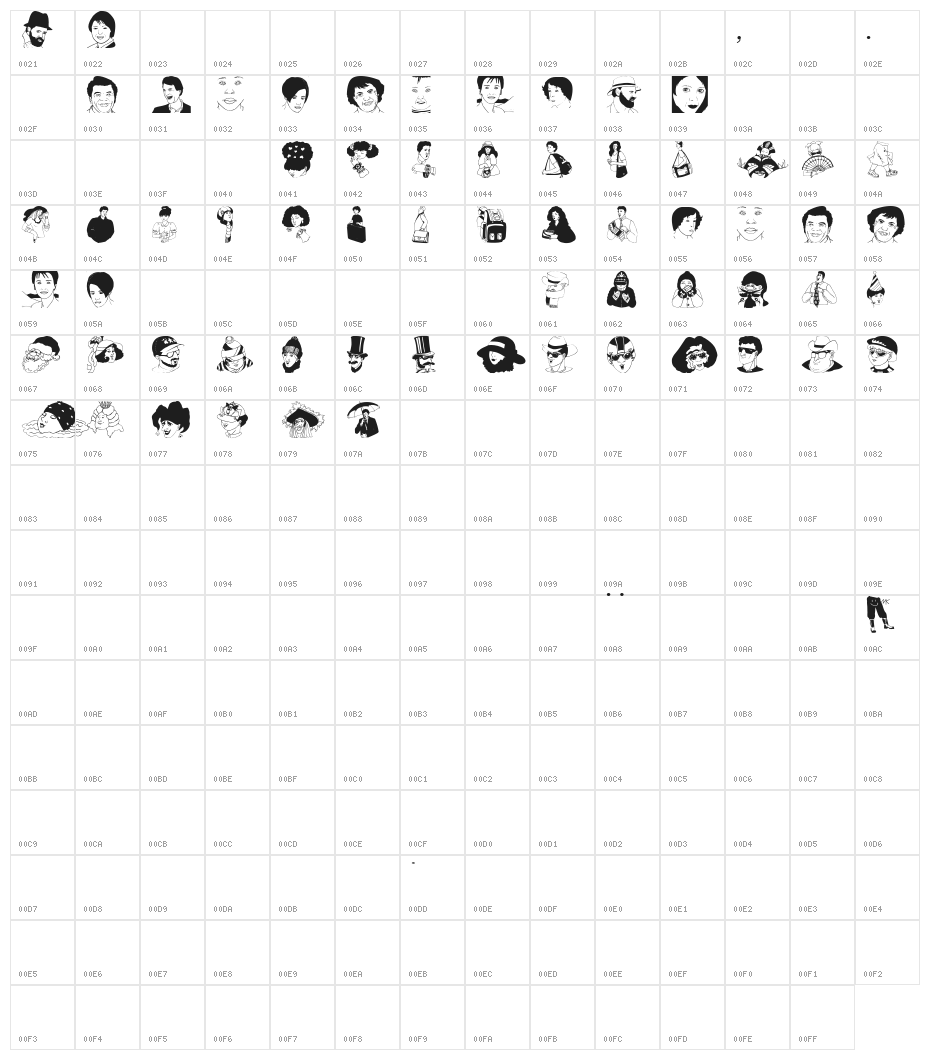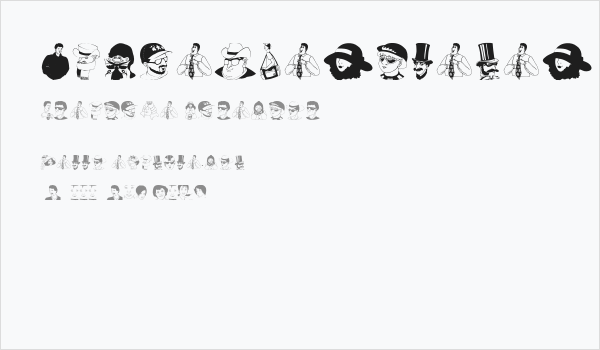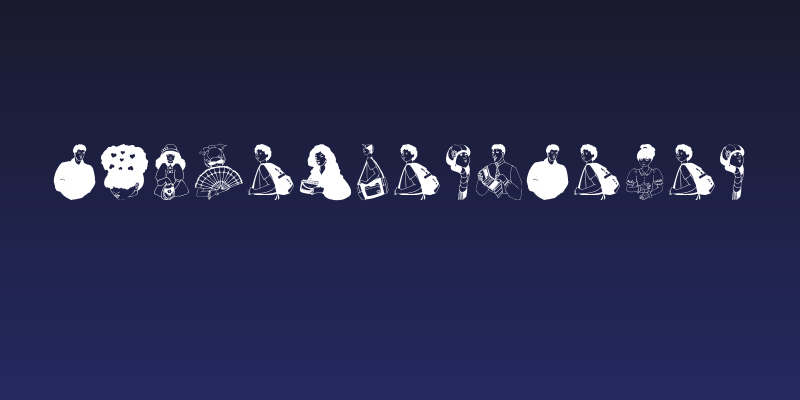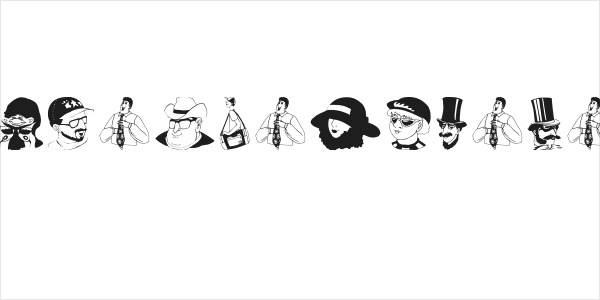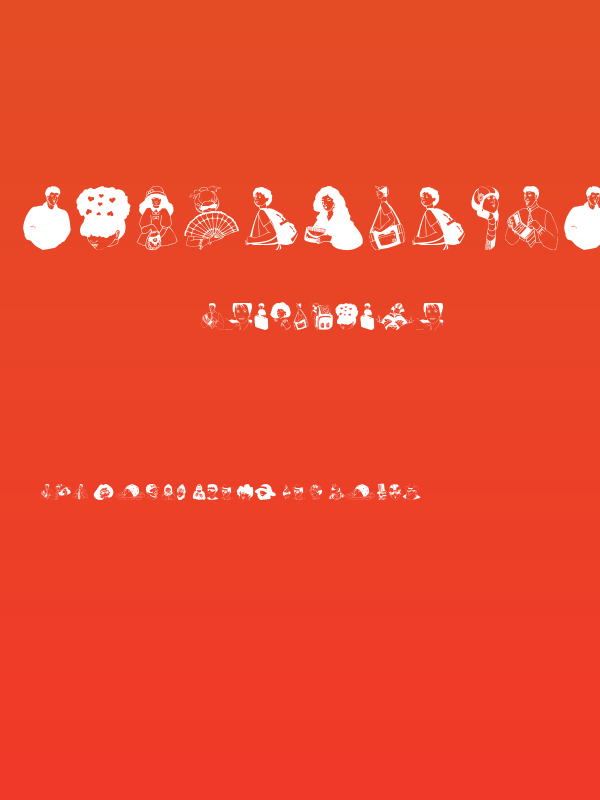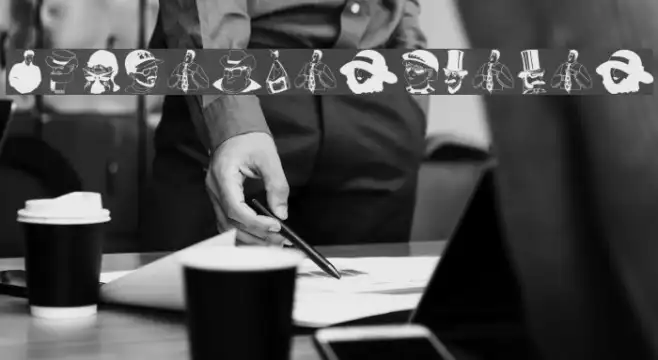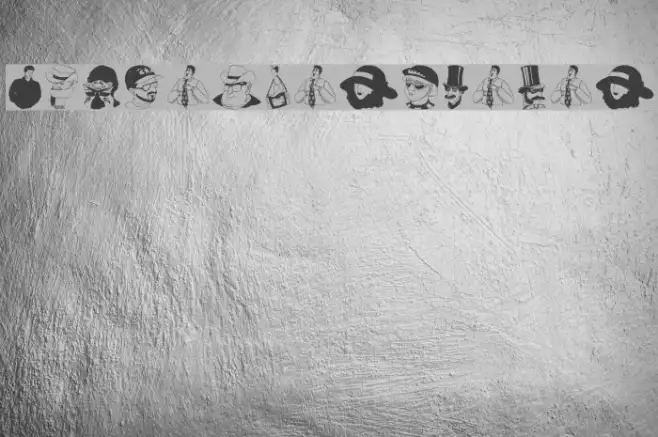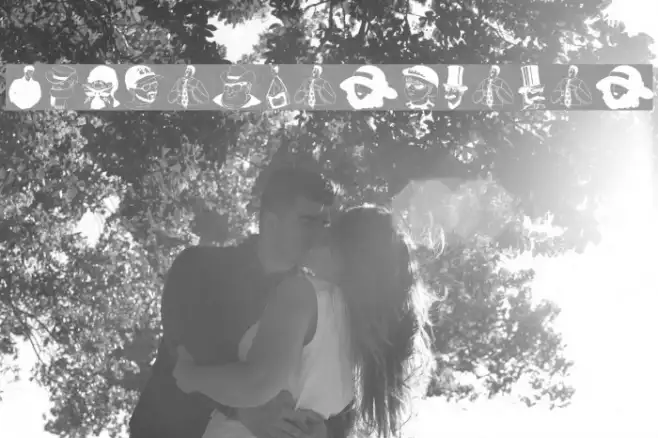
LadiesGentlemen Font
LadiesGentlemen Description
A decorative display font composed of detailed black-and-white illustrated portraits and caricatures of various people, each glyph representing a unique face or character, with a hand-drawn, sketch-like quality and high visual complexity.
| Overall Style | Decorative, Artistic, Whimsical |
| Use Case | Logos, Headlines, Posters, Artistic projects |
| Proposed Projects | Posters, album covers, editorial illustrations, event branding, creative advertising, novelty invitations. |